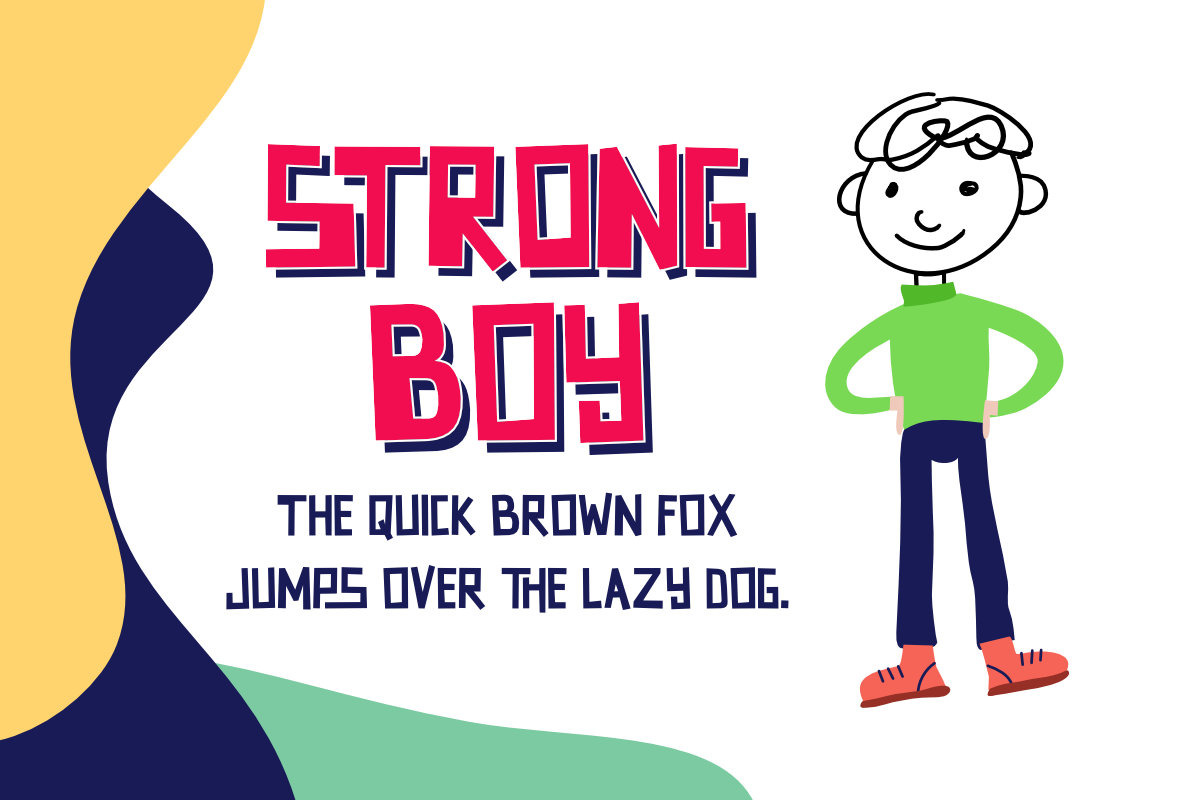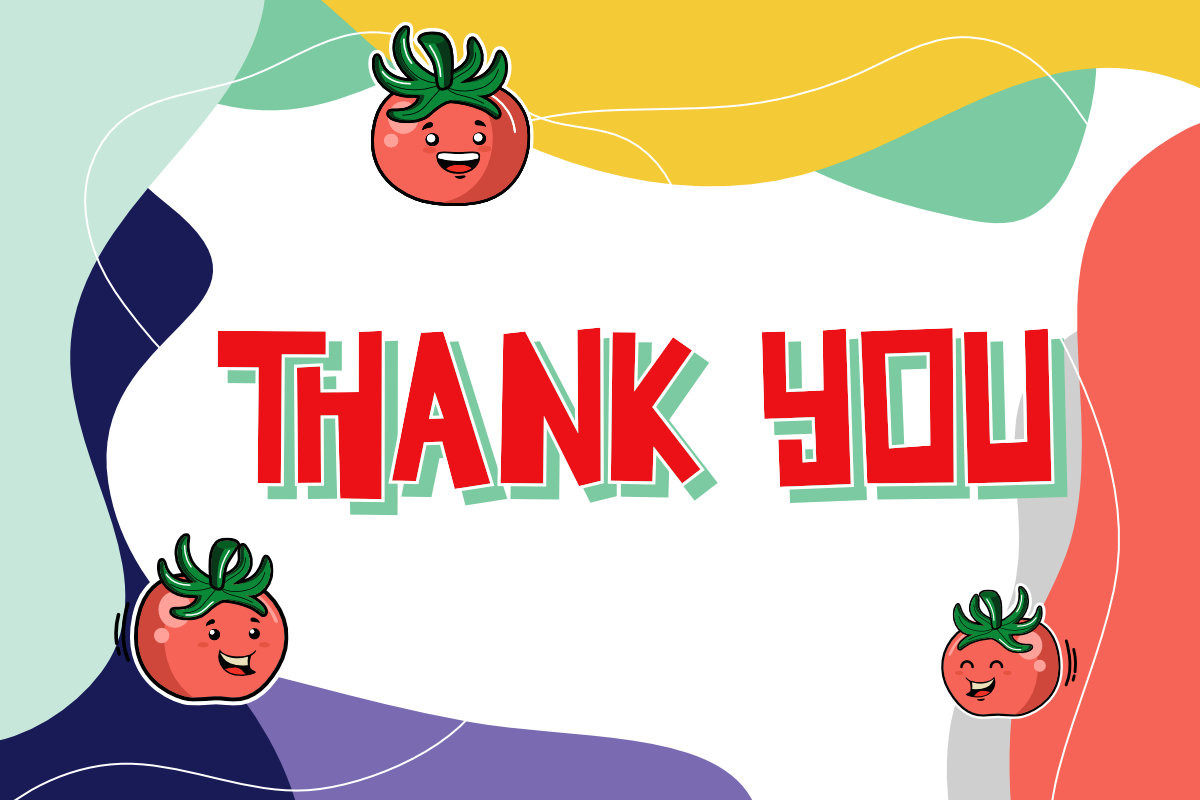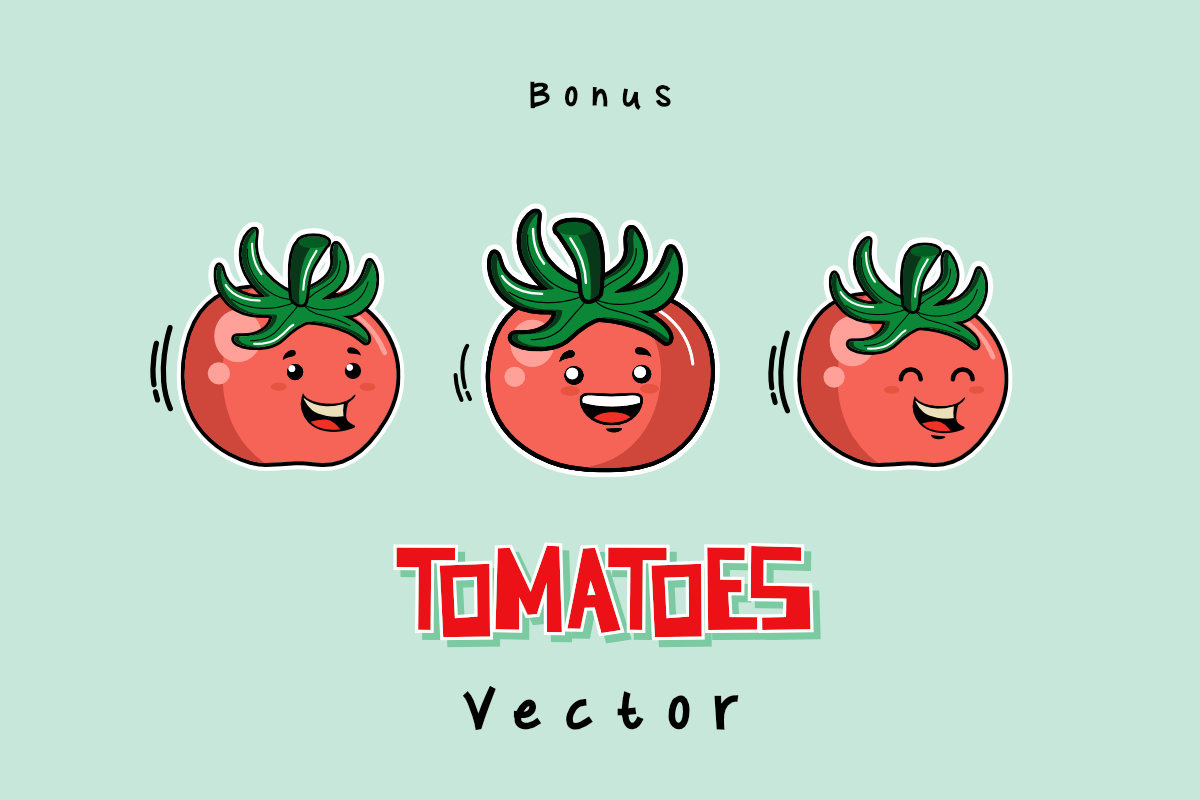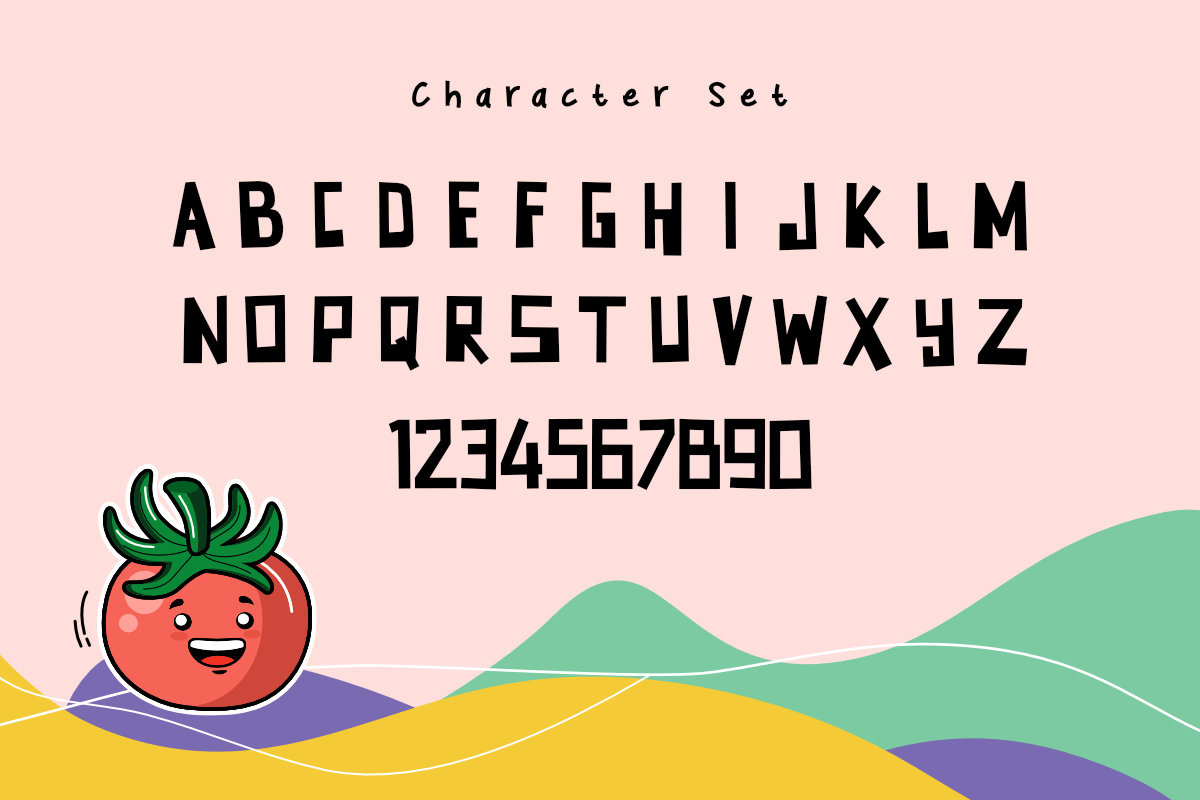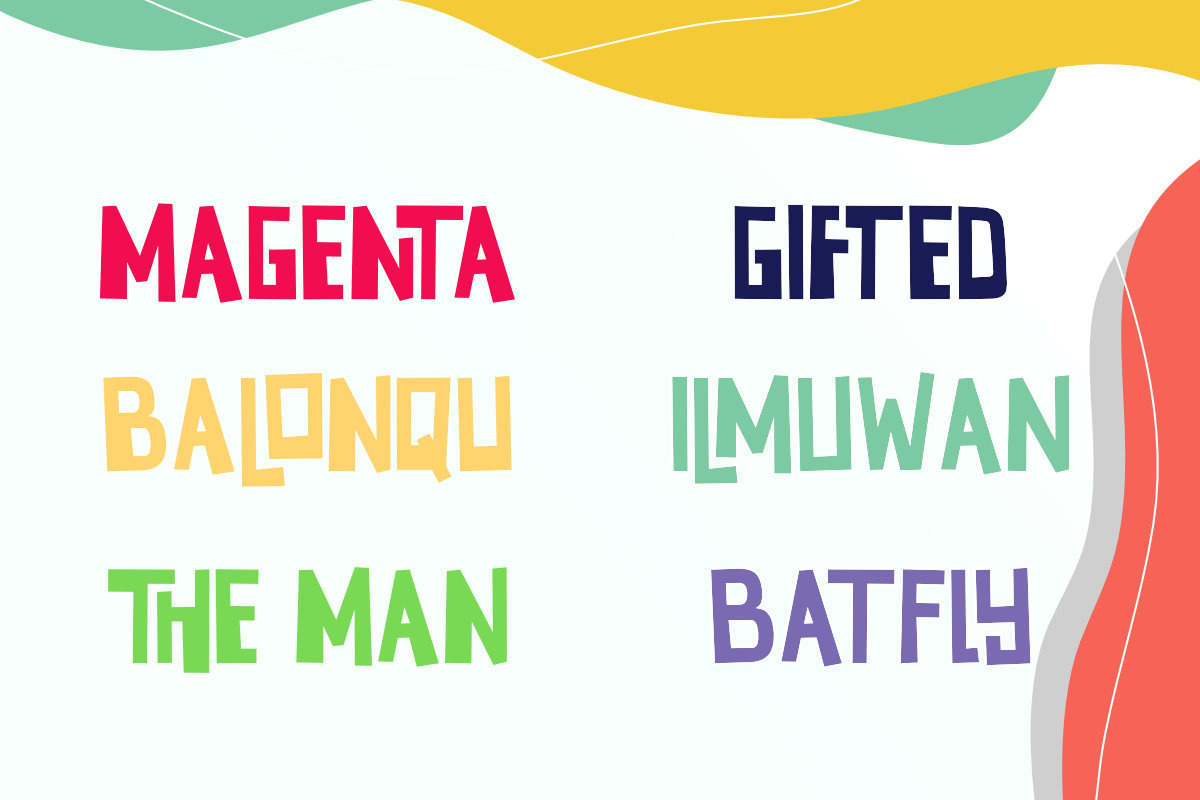
Tomatoes Playfull Typeface
Tomatoes is a font a playfull font with cheerful theme for your fun project. Tomatoes is to use for any kind of design such as branding projects, logo, social media posts, advertisements, product packaging, product designs, label, photography, watermark, invitation, stationery and any projects that need fun taste.
Why Tomatoes Playfull Typeface is worth a look
Tomatoes Playfull Typeface by Rudhi Sasmito fits naturally into Branding, posters, packaging, typography.